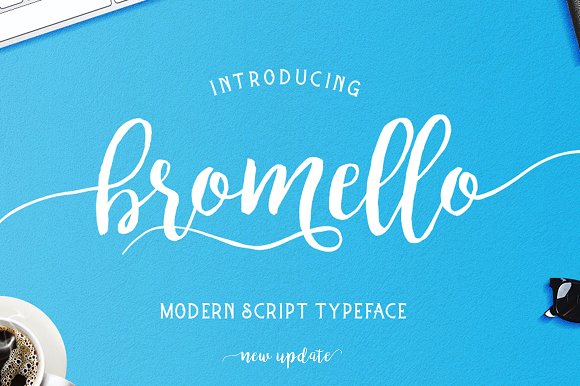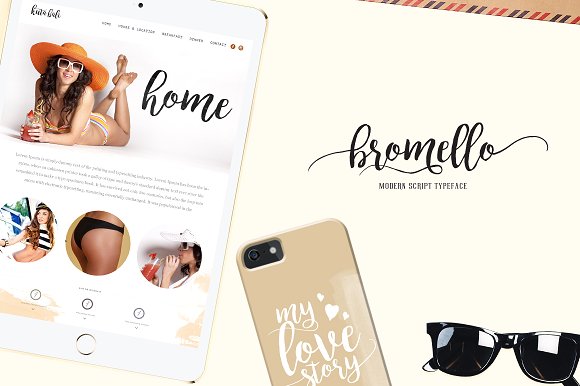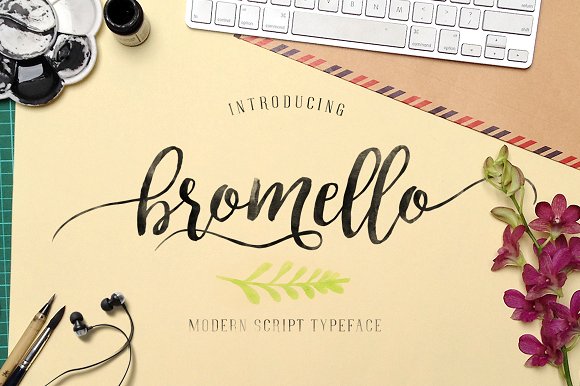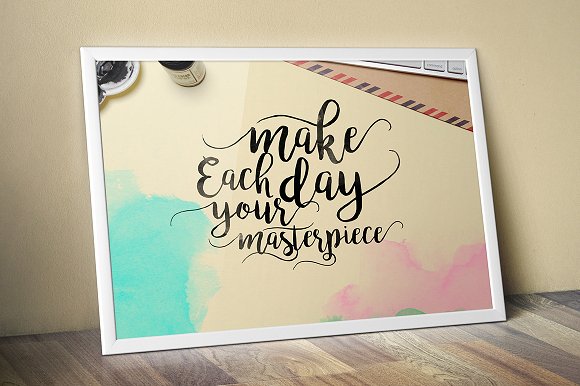
Bromello Font
About Bromello Font
Bromello is a modern script typeface. It was handmade with a brush. It can be used for wedding cards, logos, headers, posters, book covers and much more!